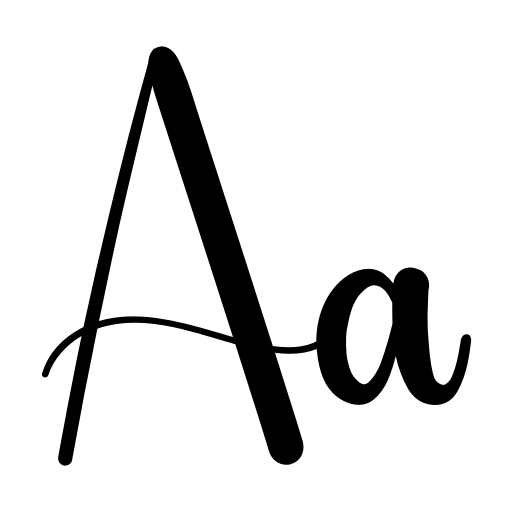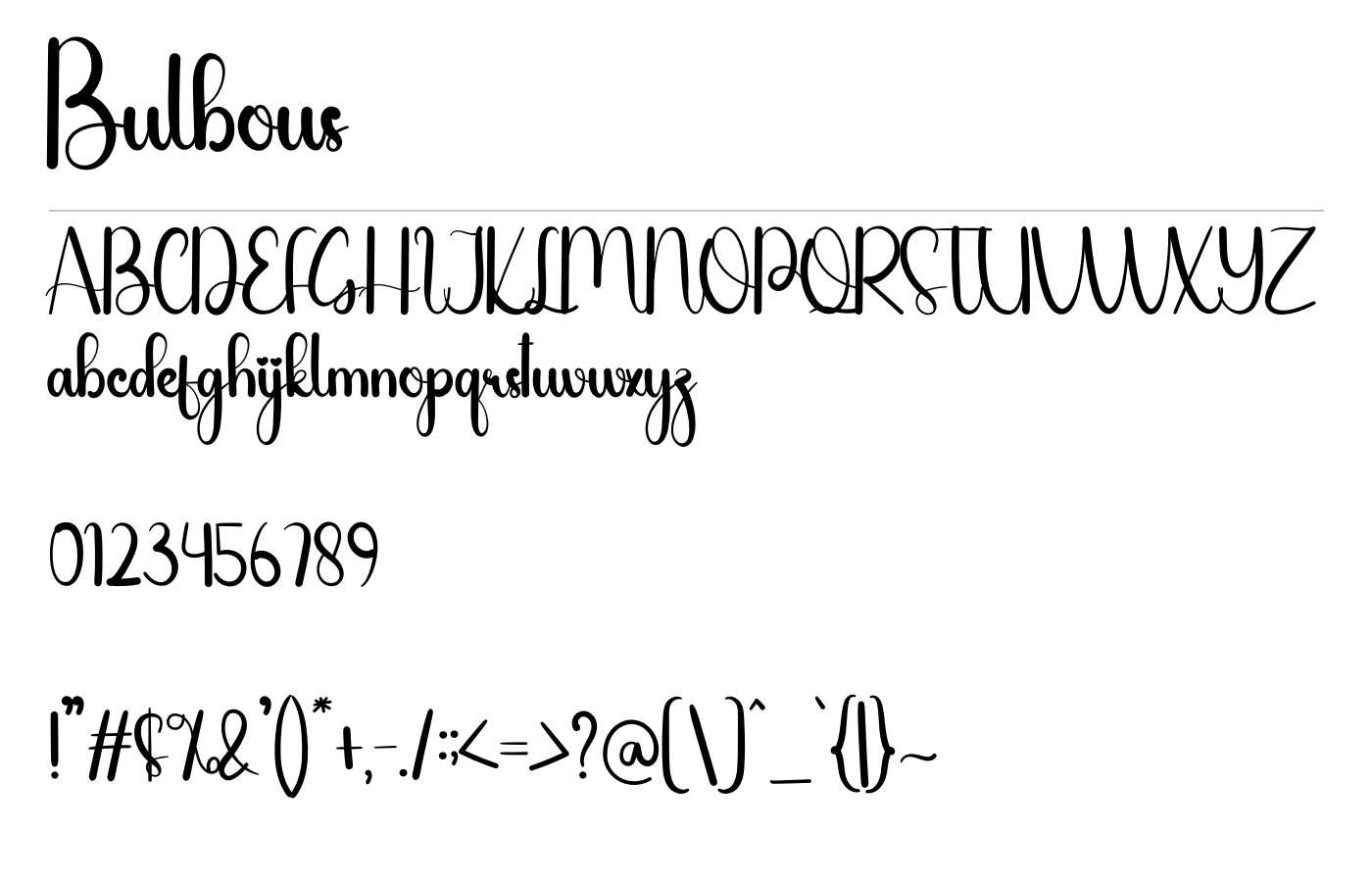
Bulbous is a playful and modern script font with a hand-drawn feel, featuring tall, slender letterforms with smooth, curved strokes and distinctive loops. Its elegant yet quirky style makes it perfect for creative branding, invitations, and eye-catching headlines that need a touch of personality and charm. This font works best in projects where a friendly, approachable atmosphere is desired, adding a unique, artistic flair without sacrificing readability.
Bulbous Font
About Bulbous Font